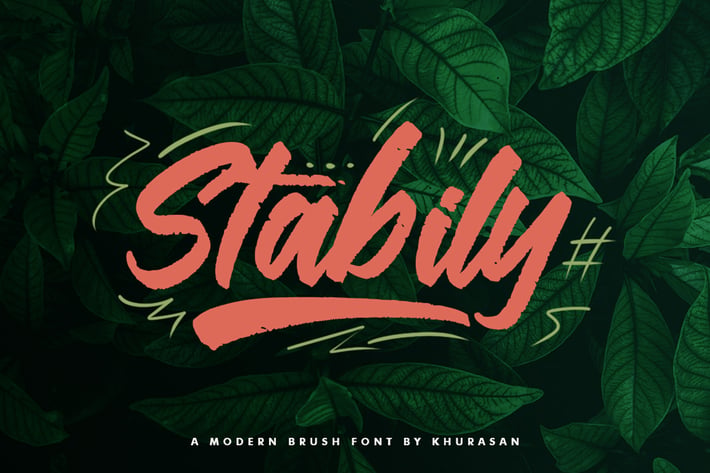
Stabily Brush Font
The Stabily is a fresh brush font, elegant and modern feel character set. The Stabily font as well as multi-lingual support, swashes, uppercase, lowercase, numerals, & punctuation.